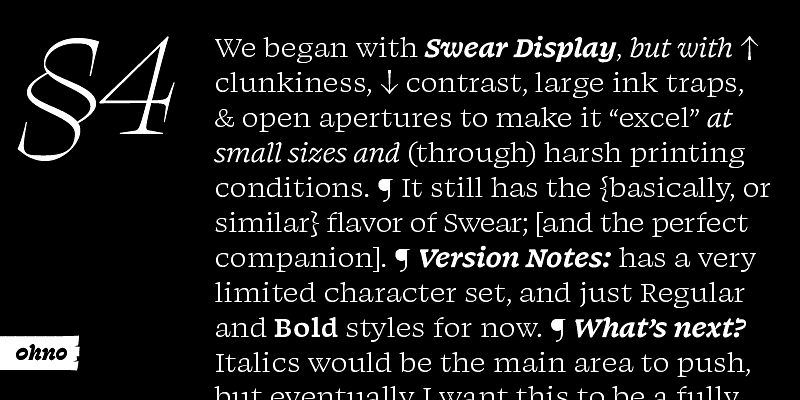
Swear Display Font Free Download
Swear Display Font Free Download is a bold and modern typeface designed to capture attention. With its sharp edges, clean lines, and geometric influences, this font is perfect for high-impact headlines, posters, branding, and creative projects that require a strong, stylish presence.
Swear Display Font Free Download features an eye-catching design that balances both strength and elegance, making it ideal for use in large-format designs such as banners, advertisements, and event posters. It’s a versatile font that can bring both a contemporary and sophisticated look to your typography.
Bold, modern, and commanding—Swear Display Font is an excellent choice for designs that need to stand out and leave a lasting impression.